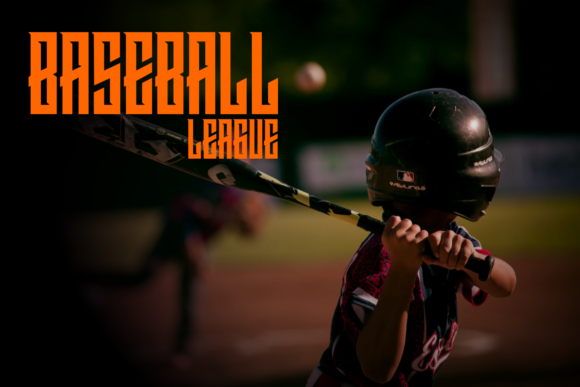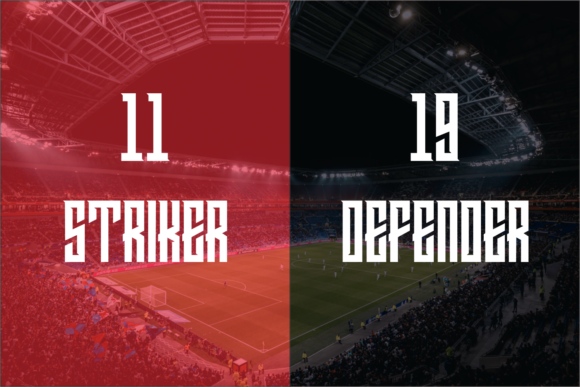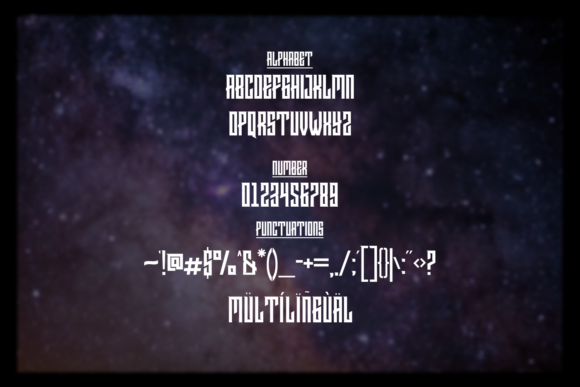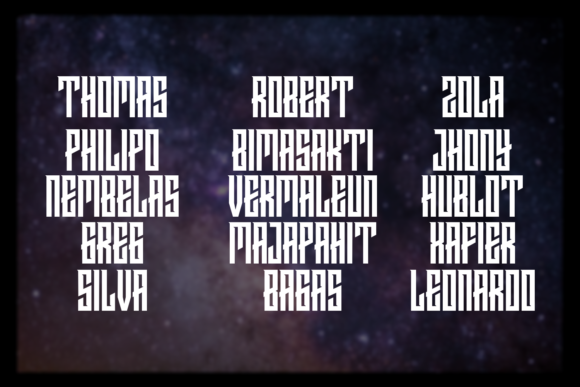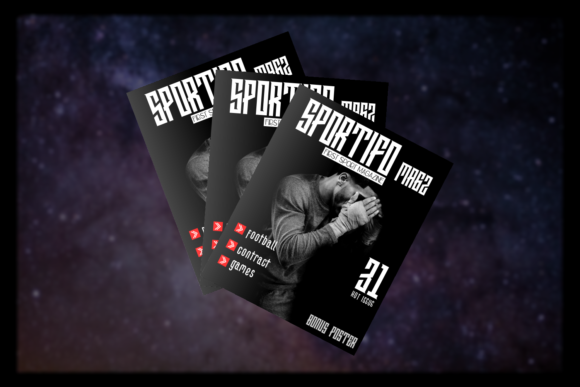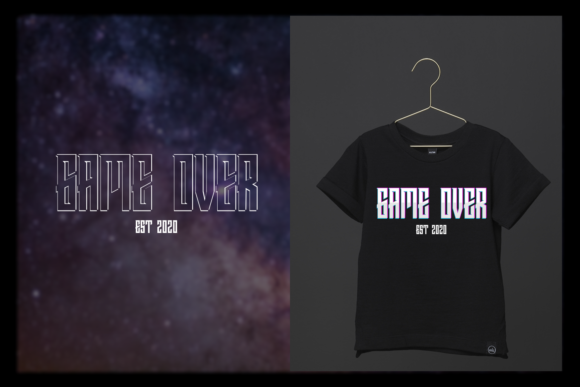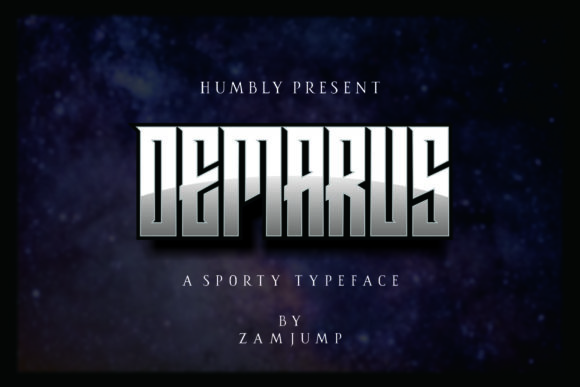
Demarus Font: Elevate Your E-Sports Projects with Style
Are you looking for a font that can add a touch of sophistication and modernity to your e-sports related projects? Look no further than the Demarus font. This exquisite display font is designed specifically for e-sports enthusiasts, designers, and crafters who want to take their creative ideas to the next level.
What is Demarus Font?
Demarus is a stunning display font that is perfect for a variety of e-sports related projects, including logotypes, quotes, magazines, t-shirts, and more. Its sleek and modern design makes it an ideal choice for designers who want to create visually appealing and professional-looking content.
Key Features of Demarus Font
- Unique and Modern Design: Demarus font boasts a unique and modern design that is sure to grab attention. Its clean lines, curves, and geometric shapes make it a perfect fit for e-sports related projects.
- Highly Versatile: This font is highly versatile and can be used for a wide range of projects, from logotypes and quotes to magazines and t-shirts.
- Easily Readable: Despite its modern and sleek design, Demarus font is easily readable, making it perfect for body text and captions.
- Scalable: This font is highly scalable, which means it can be used for a variety of applications, from small icons to large billboards.
- Logotypes: Use Demarus font to create a stunning logotype for your e-sports team or brand.
- Quotes: Add a touch of sophistication to your quotes with Demarus font.
- Magazines: Use Demarus font to create a visually appealing magazine that showcases your e-sports related content.
- T-Shirts: Add a stylish touch to your t-shirts with Demarus font.
Benefits of Using Demarus Font
There are many benefits to using Demarus font for your e-sports related projects. Here are a few:
- Stand Out from the Crowd: With Demarus font, you can create visually appealing and professional-looking content that stands out from the crowd.
- Enhance Your Brand: This font can help enhance your brand and create a consistent visual identity.
- Increase Engagement: By using Demarus font, you can increase engagement and attract more attention to your e-sports related projects.
Tips and Tricks for Using Demarus Font
Here are a few tips and tricks for using Demarus font:
- Experiment with Different Colors: Try out different colors and combinations to see what works best for your project.
- Play with Font Sizes: Experiment with different font sizes to create visual interest and hierarchy.
- Pair with Other Fonts: Try pairing Demarus font with other fonts to create a unique and visually appealing combination.
In conclusion, Demarus font is an exquisite display font that is perfect for e-sports related projects. Its unique and modern design, versatility, and readability make it an ideal choice for designers and crafters. By using Demarus font, you can elevate your creative ideas and take your e-sports related projects to the next level.